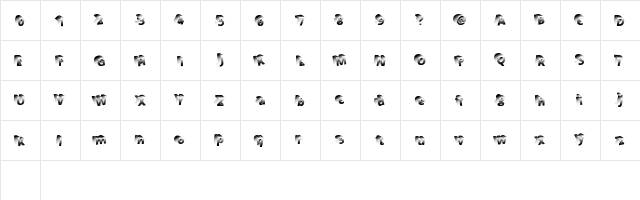
Action Regular
Design Context for Action Typeface
Action is a composed and adaptable typeface that performs quietly and consistently across a wide range of design contexts.